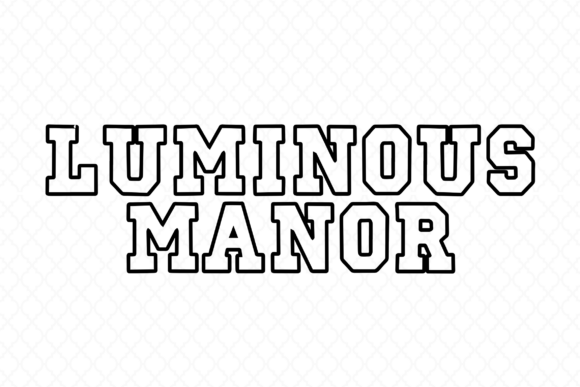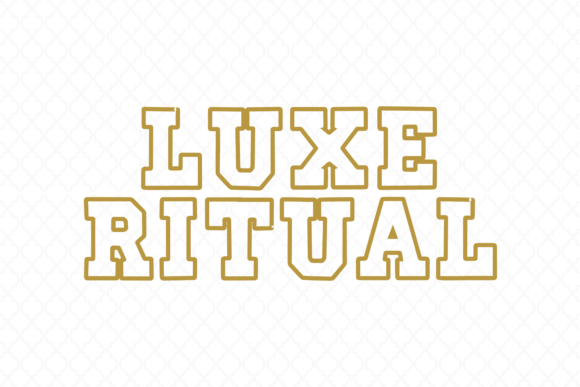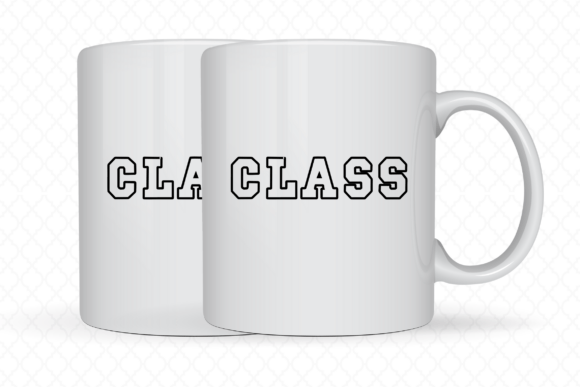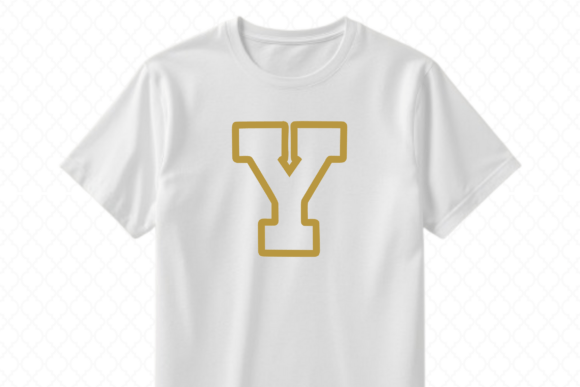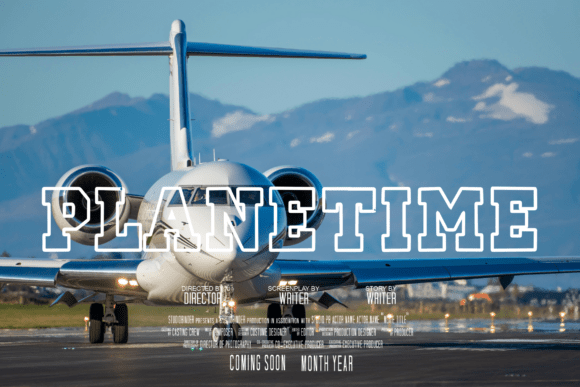
Meet Blockton Outline, the Bold Outline Display Font
Have you ever been in the middle of a design project, and suddenly, you just can’t seem to find the right font? I know I have. It was a few months ago when I was working on a branding project for a trendy new coffee shop. The client wanted a bold, eye-catching logo that would stand out on their packaging and signage. I tried font after font, but nothing seemed quite right. That was until I stumbled upon Blockton Outline.
Blockton Outline is a bold block display font built with clean outline letterforms that give your designs a strong look without heavy fill. It keeps the solid structure of Blockton while adding an open, modern feel that’s perfect for layered and colorful designs. Because the outlines are balanced and consistent, the font stays readable at any size.
What Makes Blockton Outline Font So Great?
So, what makes Blockton Outline so special? Let’s dive into the details.
Why I Love Blockton Outline Font
- ✅ Clean and Consistent Outlines: The outline shapes cut and print cleanly for vinyl, laser, stickers, and screen printing.
- ✅ Flexible and Customizable: The outline style makes it easy to layer colors, textures, or gradients behind the letters.
- ✅ Simple and Predictable: The block geometry is simple and predictable, making it easy to work with.
While Blockton Outline is an amazing font, there are a few small quirks to be aware of:
- ⚠️ Limited Ligatures: Blockton Outline has a limited number of ligatures, which may be a drawback for some designers.
- 🤔 Not Suitable for Body Text: Due to its bold and outline nature, Blockton Outline is best used for headlines and titles, rather than body text.
The Backstory of Blockton Outline
Blockton Outline was designed by a team of creatives who wanted to create a font that was both bold and flexible. They drew inspiration from modern architecture and geometric shapes to create a font that would be perfect for layered and colorful designs.